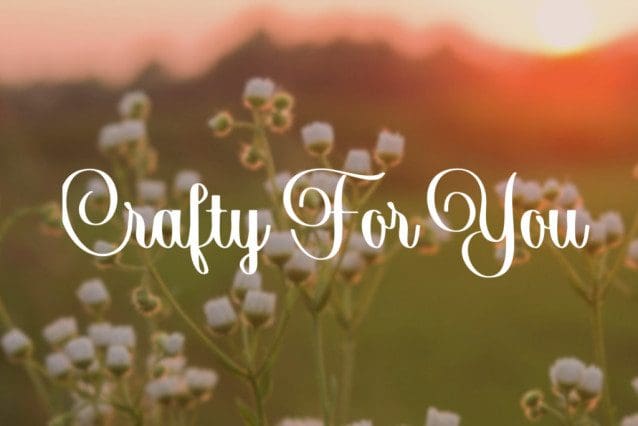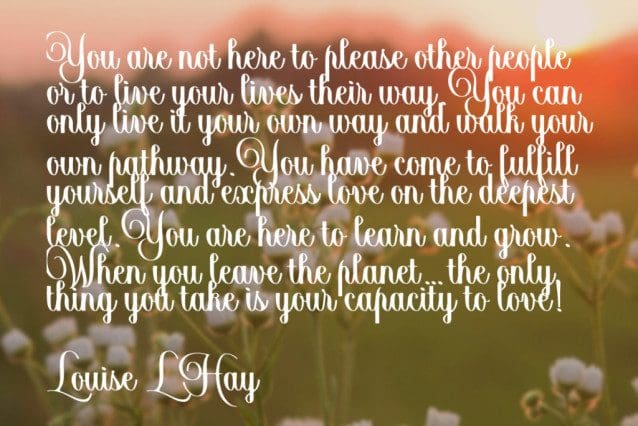
Crafty For You Font
Crafty For You Font – Romantic and sweet calligraphy typeface. This font is PUA encoded which means you can access all of the glyphs and swashes with ease!